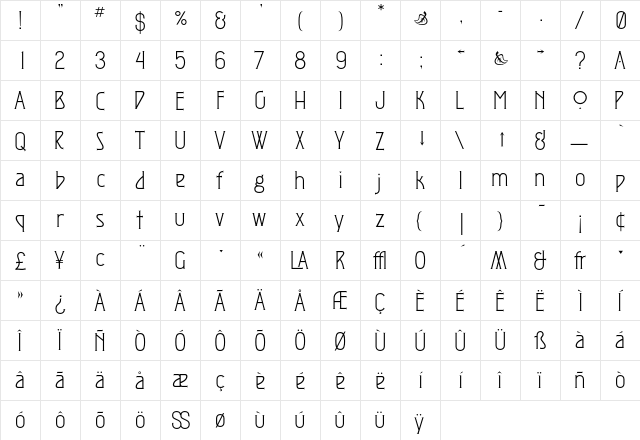
JMExpositionPlainOne Regular
Design Context for JMExpositionPlainOne Typeface
JMExpositionPlainOne offers clean, dependable letterforms without strong stylistic allegiance, making it a practical choice for designers who need flexibility.
Pro Tip: Use JMExpositionPlainOne in both headline and body roles to test its range before committing to a single application.